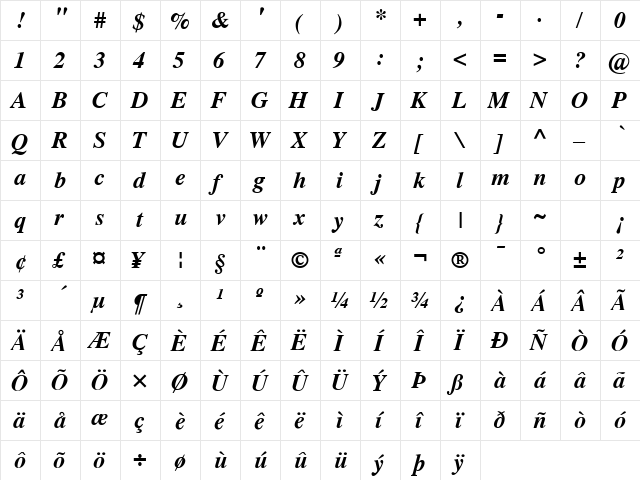
TempsSH Bold Italic
Design Context for TempsSH Typeface
TempsSH is a composed and adaptable typeface that performs quietly and consistently across a wide range of design contexts. The slanted form adds forward momentum and visual energy. Its bold stroke weight gives it real presence on the page.
Pro Tip: Use TempsSH for emphasis, pull quotes, and subheadings where its slanted energy can add rhythm to the layout.